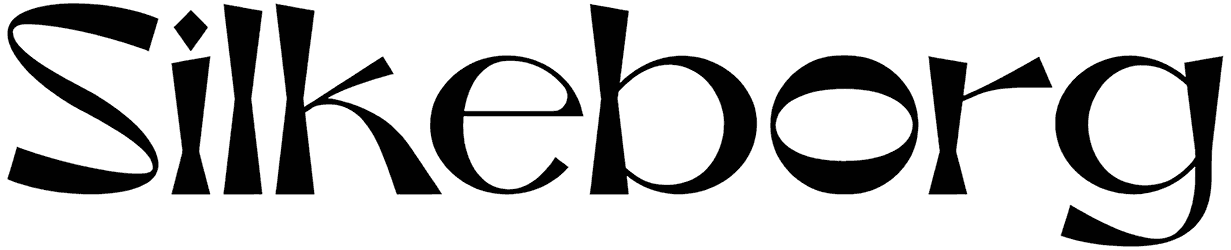
Silkeborg Font
This time, let’s use this retro font for your innovative layout to make it ravishing and unique. The Silkeborg font has a classic and chic visual that is going to capture a lot of attention for your design. Most characters of this fancy font are available, and you can count on it for different texts.